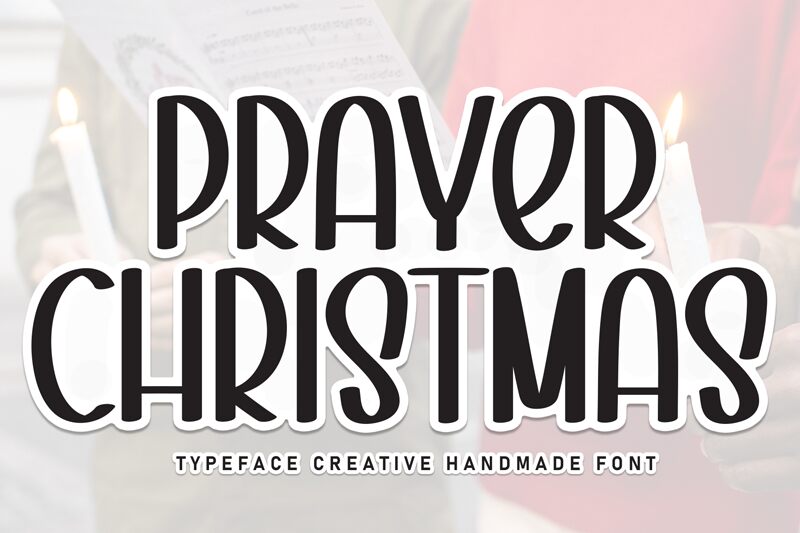
Prayer Christmas
Prayer Christmas font is a condensed handwritten font by Scratchones with a retro aesthetic and art deco influence. An elegant decorative typeface suitable for festive projects, this font combines curved forms with unique geometric shapes to create an overall remarkable appearance. Keeping its classy look, this typeface manages to convey a more modern and playful feel as well.
Use Prayer Christmas in holiday greetings, branding design, logo design, social media promotion or publishing, posters/flyers/brochures or magazines/newspapers typography. Websites and apps are no exception to the list of design fields that can thrive from integrating this awesome free script font.